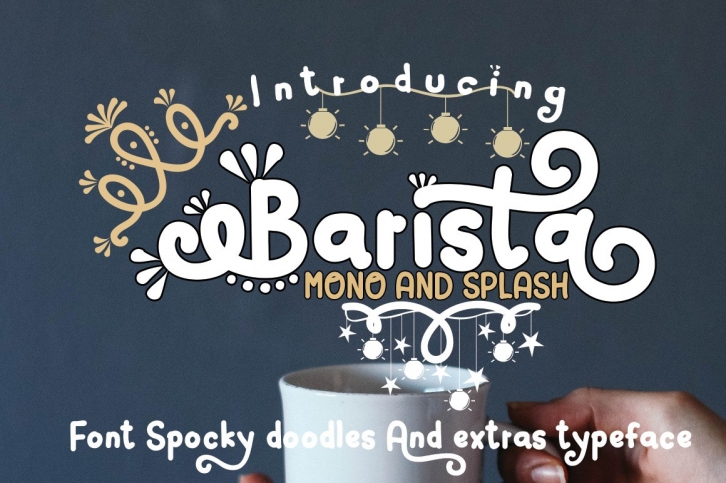
Barista is a beautiful font that was designed by baldam. It's a great choice for designers and creatives who need such a font. It was released on November 15, 2018 and the file size is 15.76 MB. Barista may give a more youthful, expressive and casual look to your project. It is a very beautiful, refined, elegant, and high-quality font.